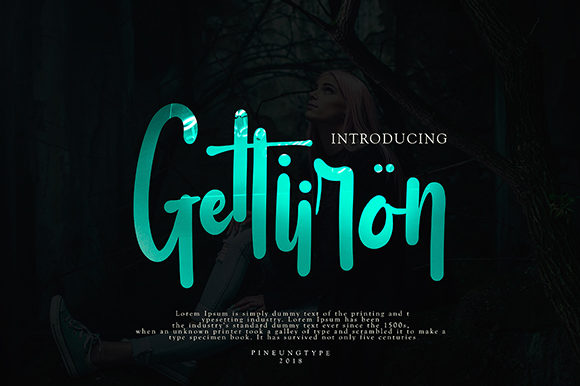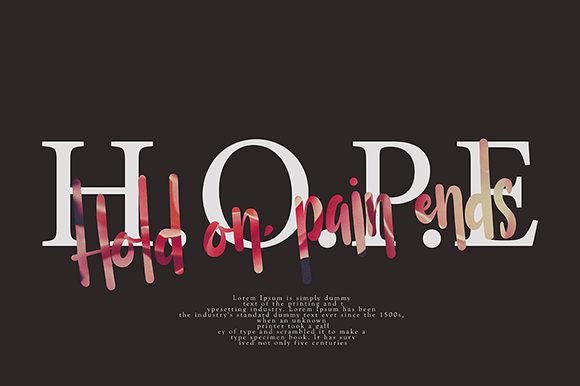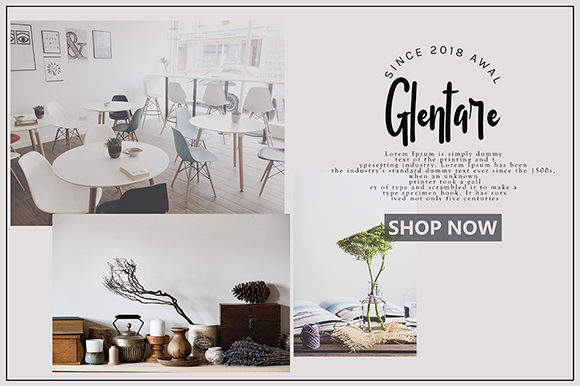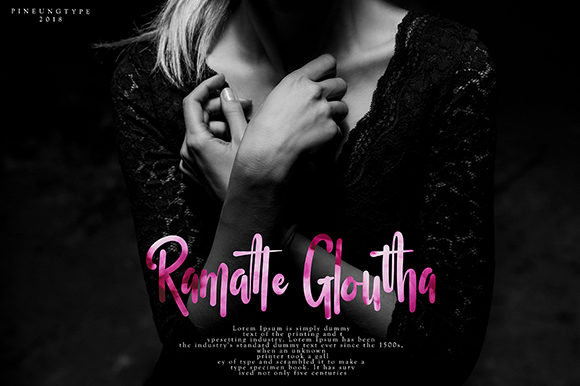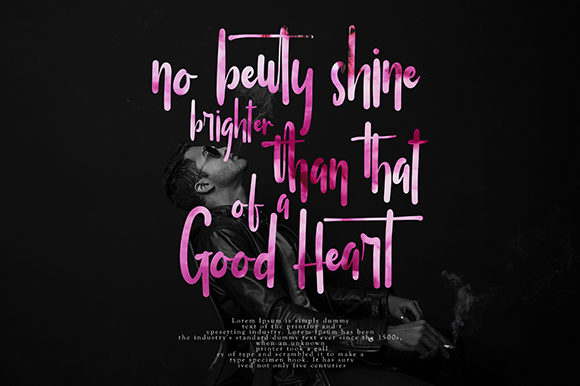
HomeScript FontsGettiiron Font Script Fonts Gettiiron Font FacebookXPinterestWhatsApp Gettiiron Font Poster 2 Gettiiron Font Poster 3 Gettiiron Font Poster 4 Gettiiron Font Poster 5 About Gettiiron Font Gettiiron is a unique and stunning handwritten font with amazing swashes. Fall in love with its timeless appeal! DOWNLOAD ON CREATIVE FABRICAThis font is sold and delivered by Creative Fabrica. Font Canyon may earn a commission if you buy through this link. People also explored Dahgean Font Highlove Font Kastroo Font Dickcissel Font Ameda Font Sparkle Groovy Font Biscotte Font Mister Quenos Font Fregeno Font 379 0 TagsGettiiron Font Previous articleDevita FontNext articleBerttina Font LEAVE A REPLY Cancel reply Comment: Please enter your comment! Name:* Please enter your name here Email:* You have entered an incorrect email address! Please enter your email address here Website: Save my name, email, and website in this browser for the next time I comment. Personal Use Free Velasco Personal Use Free Read more about this font Manhattan Personal Use Free Read more about this font Densmore Personal Use Free Read more about this font Autumn Flowers Font Personal Use Free Read more about this font BLOG Top 7 Google Fonts Alternatives for Faster and Privacy-Friendly Web Design (2025) Top 7 Google Fonts Alternatives for Faster and Privacy-Friendly Web Design (2025) When it comes to web typography, Google Fonts has long been the go-to... Using Fonts in Digital Marketing: Tips to Strengthen Your Brand Identity How to Install and Use Fonts on Windows, macOS, and Web Projects Free vs Paid Fonts: Why Investing in Premium Fonts Is Worth It